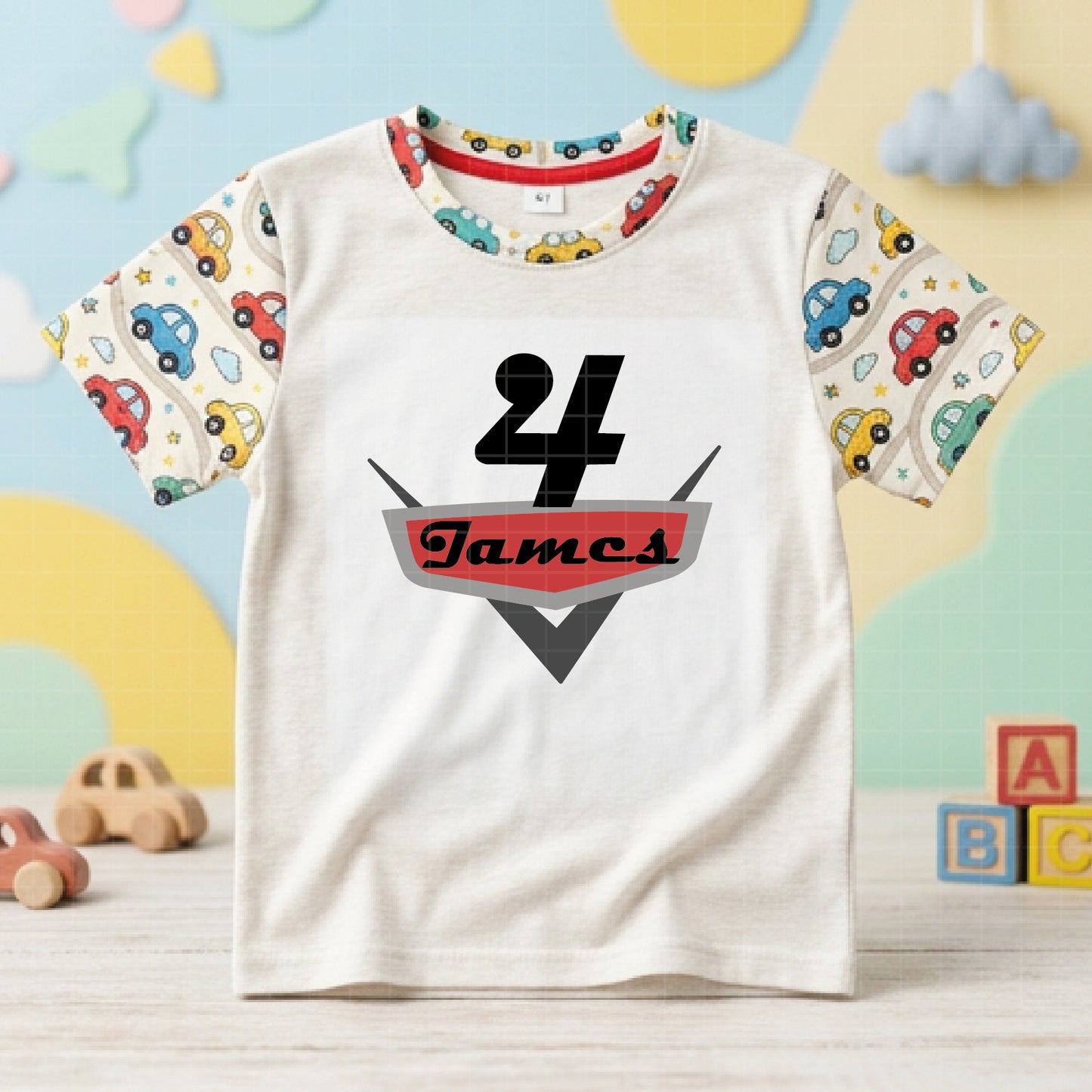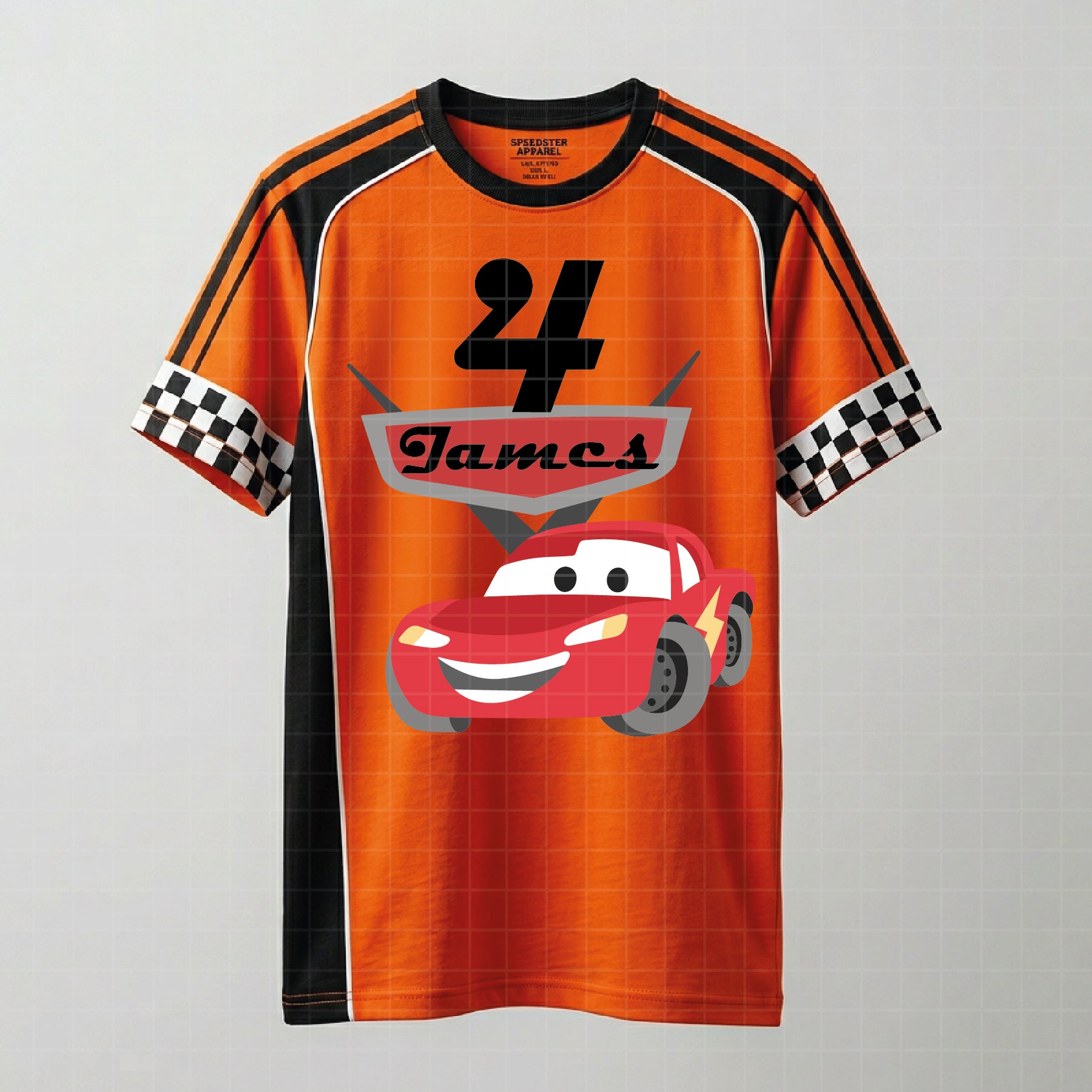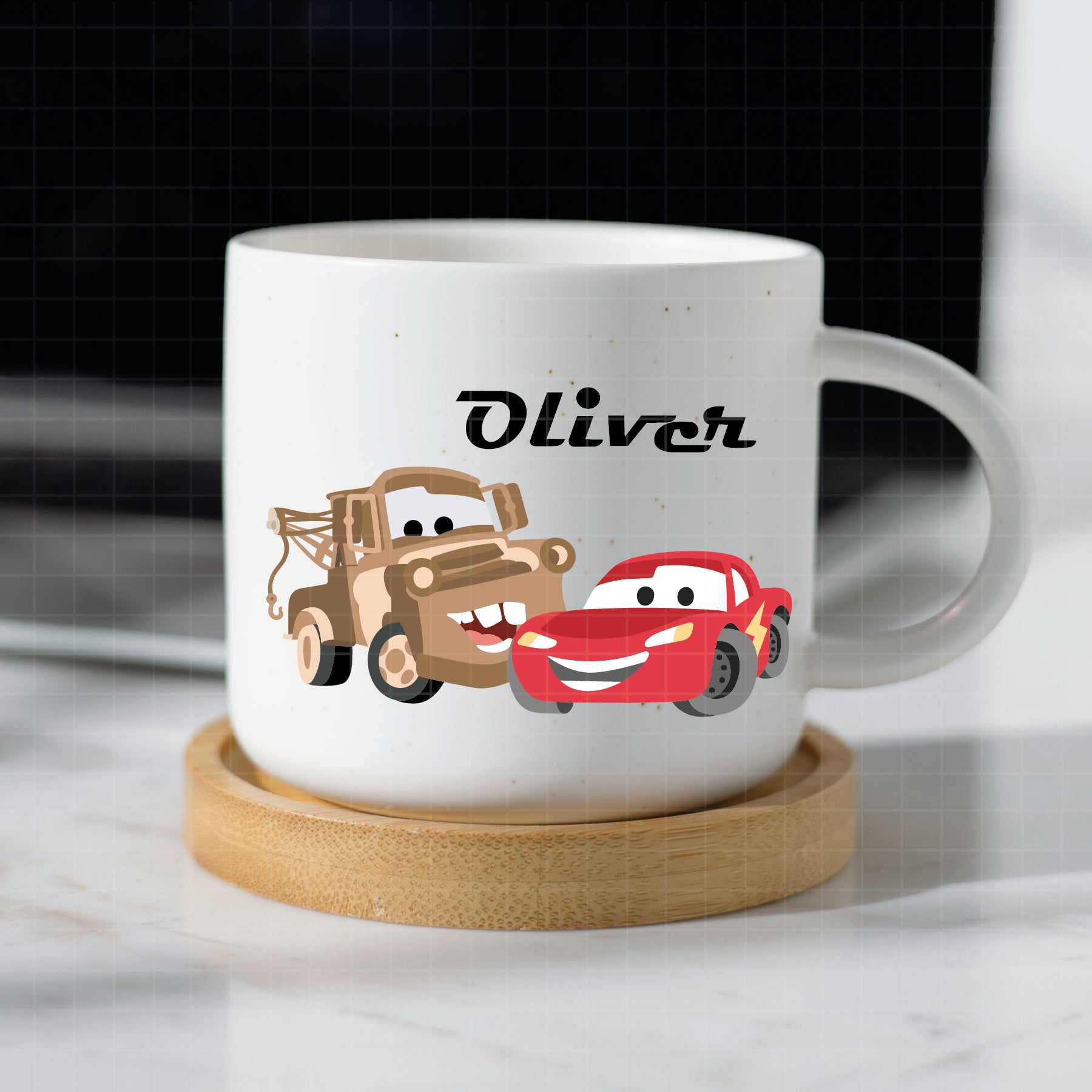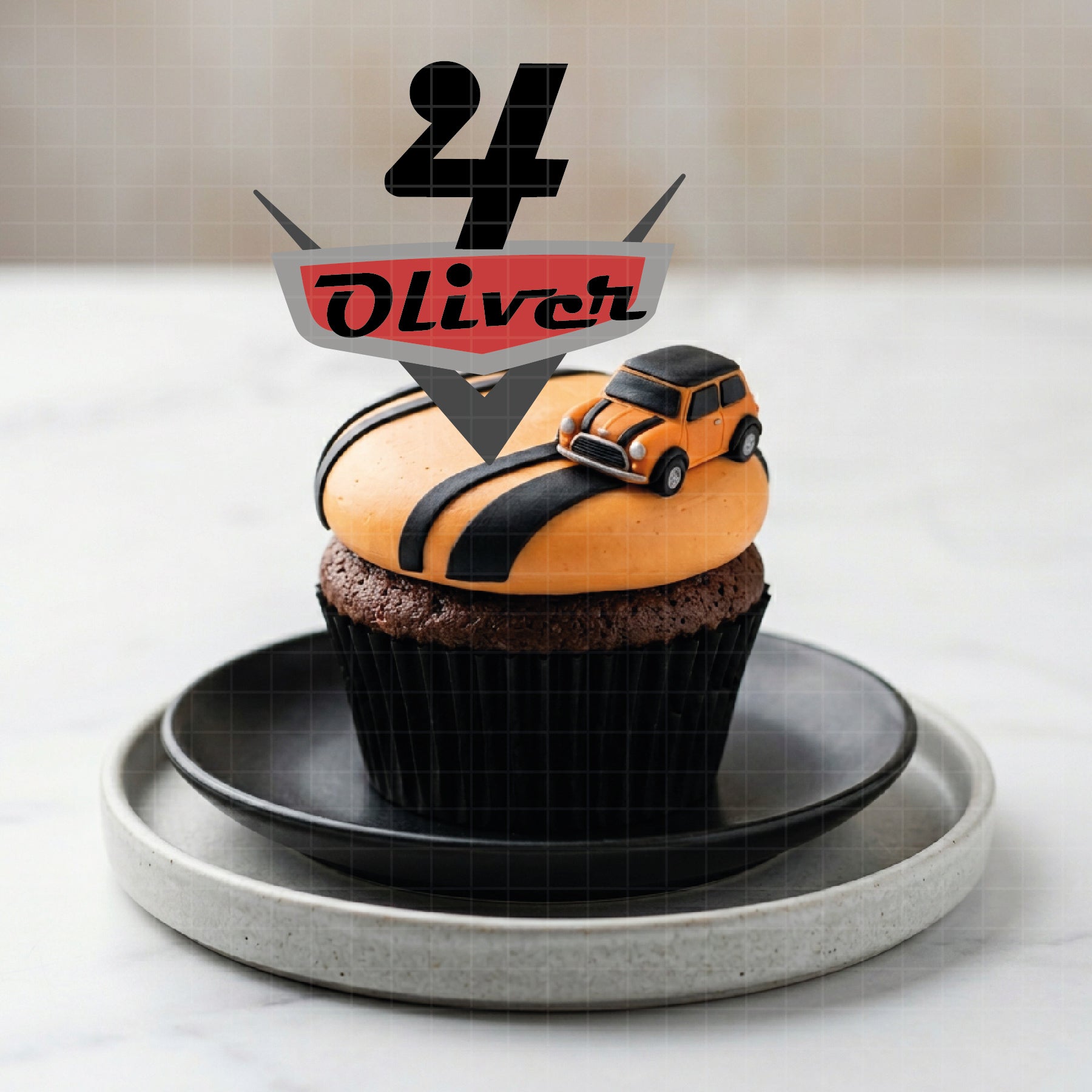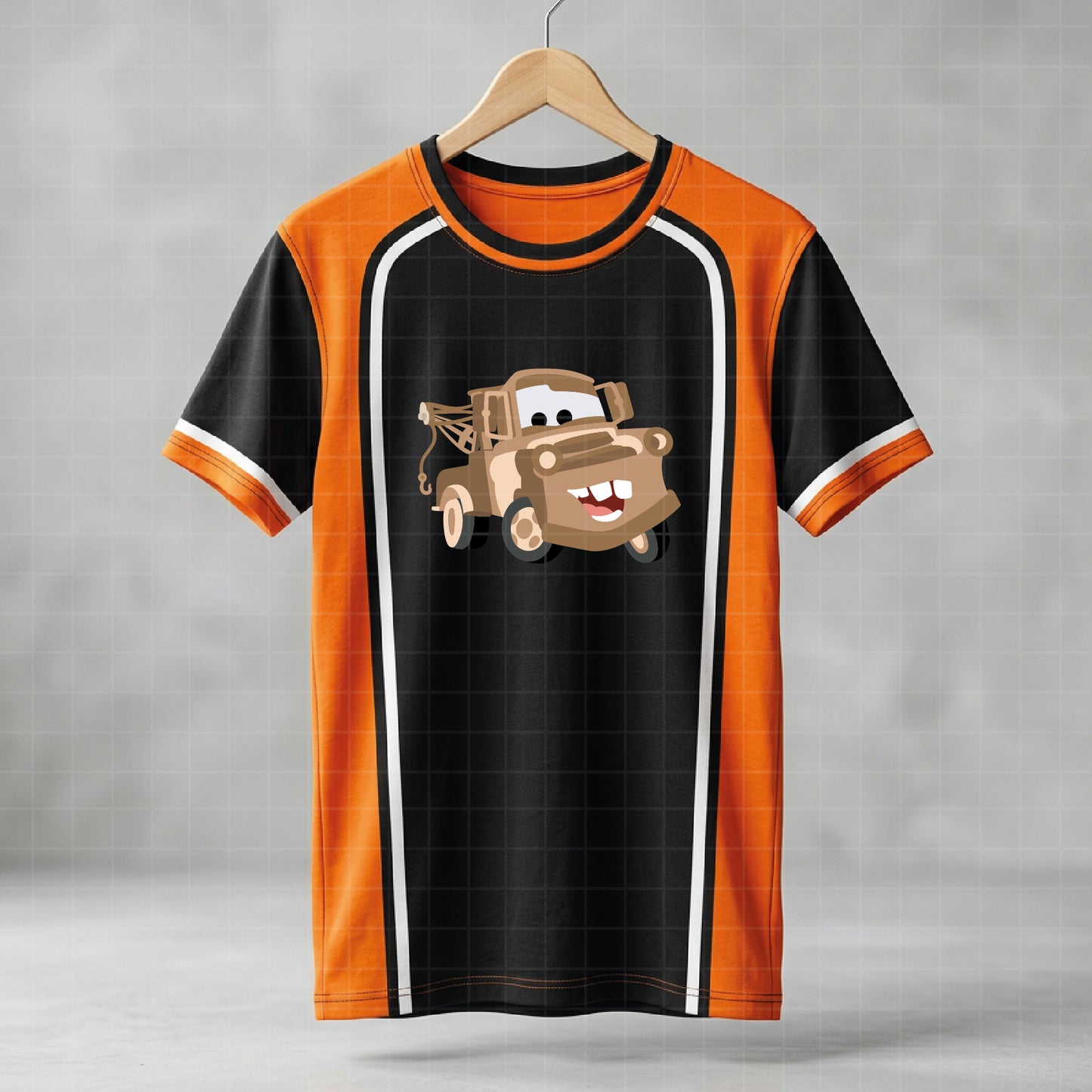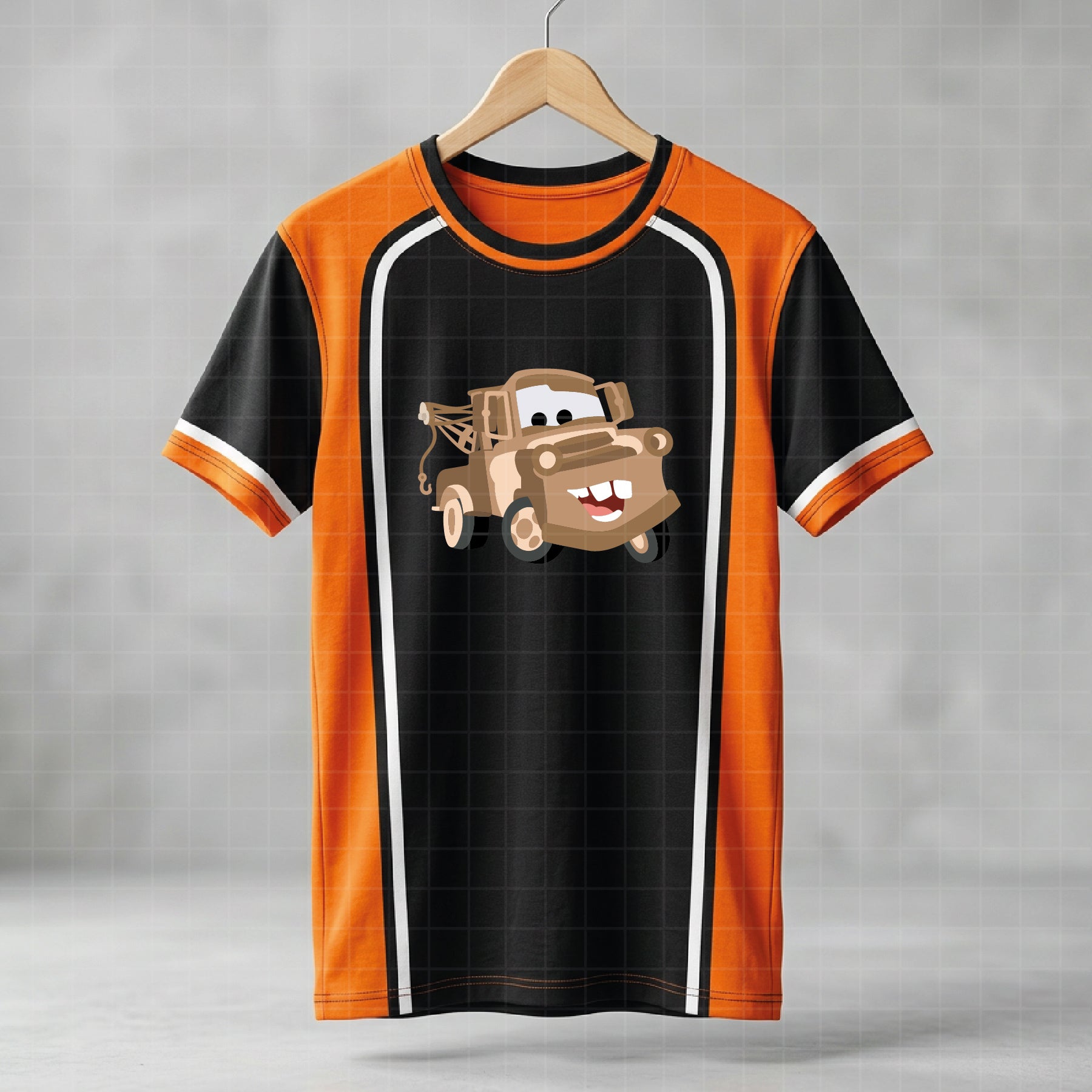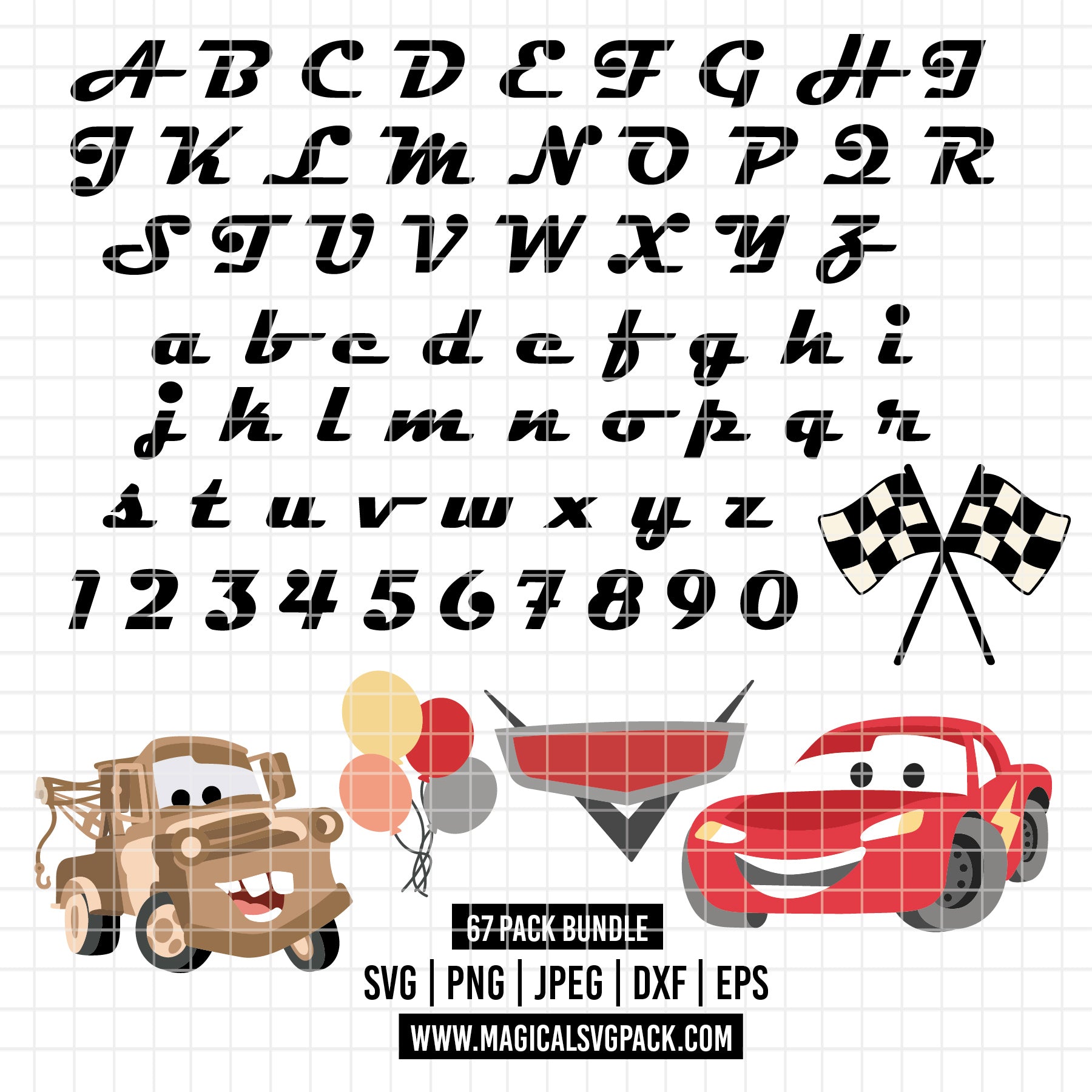
COD6146 - Cars Birthday SVG PNG Bundle. Cricut instant download. Lightning McQueen, Mater, icons, Racing Alphabet Font Uppercase Lowercase, Numbers
🏁 CARS BIRTHDAY BUNDLE — Official Logo Style Cursive Font + Lightning McQueen + Mater + Full Alphabet + Numbers + Icons.
Use the alphabet and numbers to spell any name or age — then combine with the character cliparts to create fully custom birthday designs, just like the examples shown in the preview images!
✔ Full Alphabet A–Z UPPERCASE (Cars logo style cursive font)
✔ Full Alphabet a–z lowercase (Cars logo style cursive font)